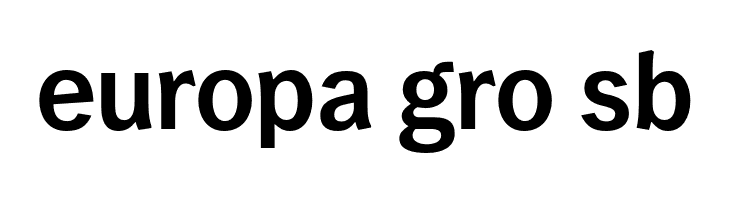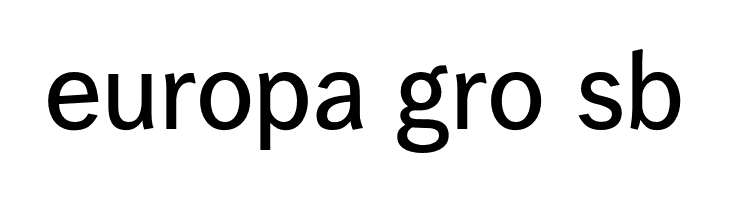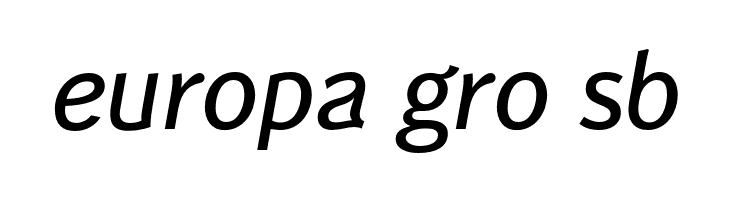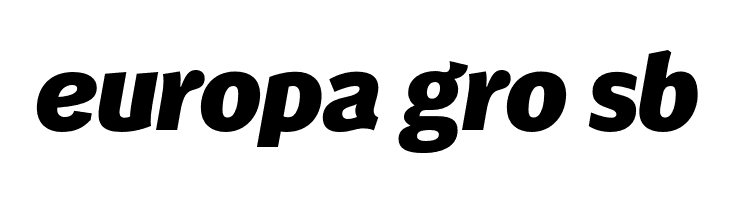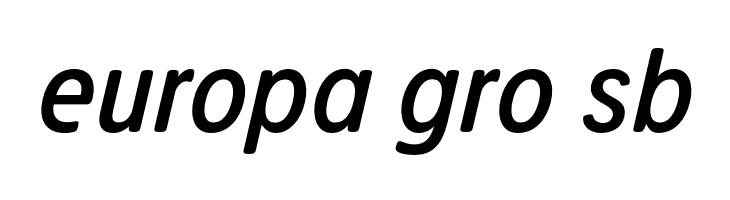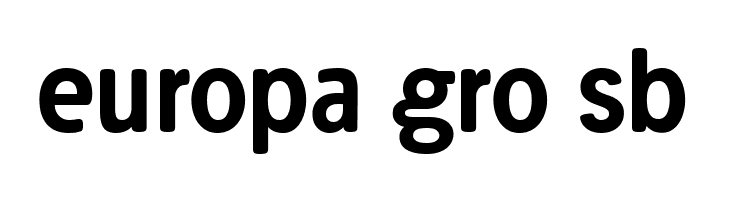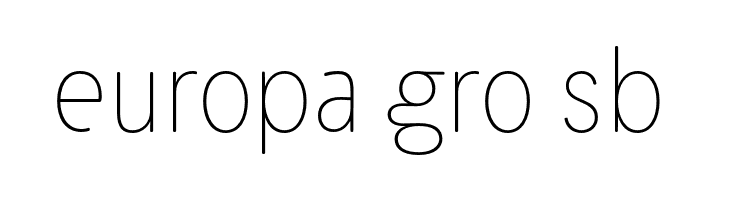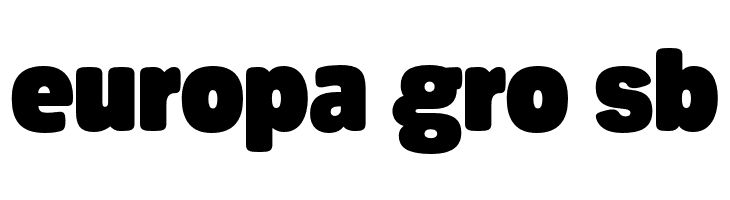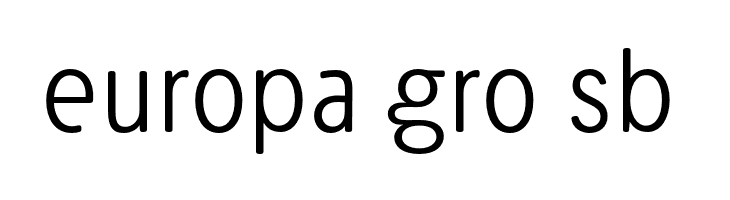
A bold, modern sans-serif font with excellent readability.
A modern, clean sans-serif typeface with balanced proportions and uniform stroke width.
A modern, italicized font with a sleek and professional appearance.
A bold, italic font with a modern and dynamic style.
Bold, italicized font with a dynamic and modern style.
A rounded, italic font with a modern and approachable style.
A modern, rounded font with smooth curves and a friendly appearance.
A modern, rounded, and thin sans-serif font with a clean and elegant design.
A bold, rounded font with a friendly and approachable style.
A modern, rounded font with a clean and approachable design.